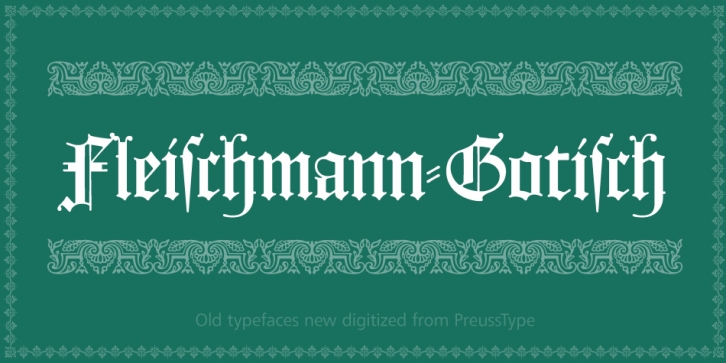
Fleischmann Gotisch is a blackletter font published by preussTYPE.
The Fleischmann Gotisch has been proved to be one of the fonts, on which Fleischmann spent a good deal of his best effort; this font simply was near to his heart. Between 1744 and 1762 he created 13 different sizes of this font. All follow the same principles of forms, but their richness of details has been adapted to the particular sizes.